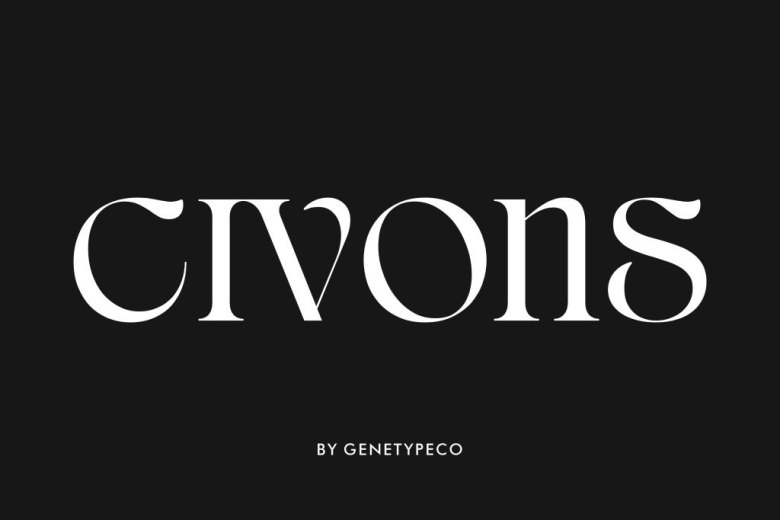
Civons Font
Civons Serif display font – the class is included in a typeface. Therefore, it perfectly suitable to use it in branding and editorial projects where established conception of serifs and modern trends are combined in harmony to convey the character and elegance of your brand. Bring out the designer in you with this traditional and yet innovative font that makes the letters look as though they are radiating design.
Civons Serif Font